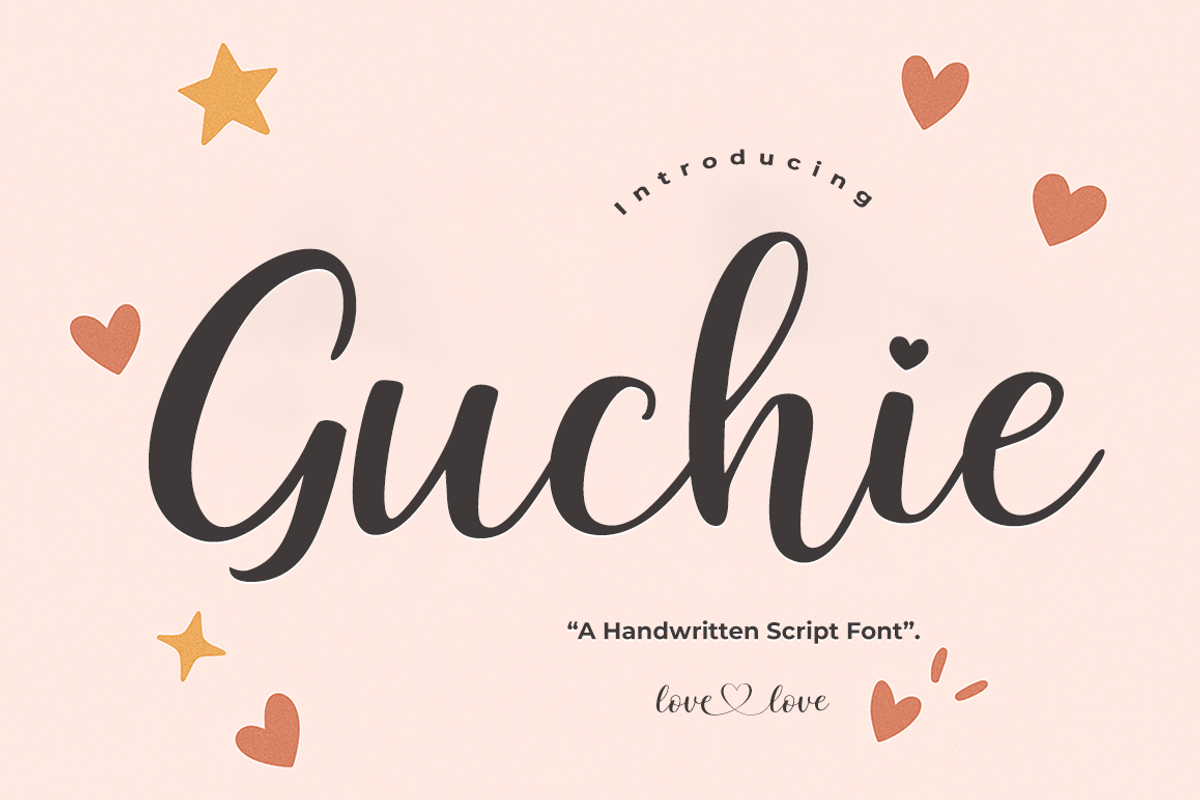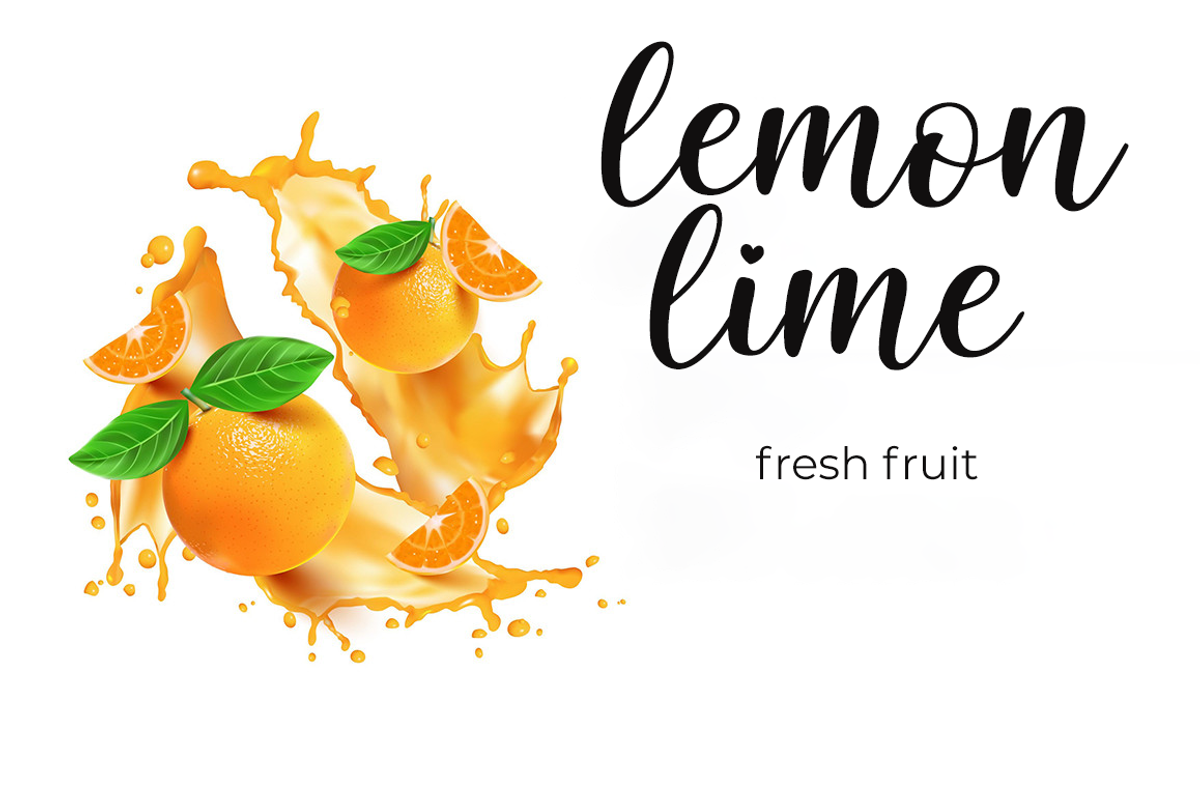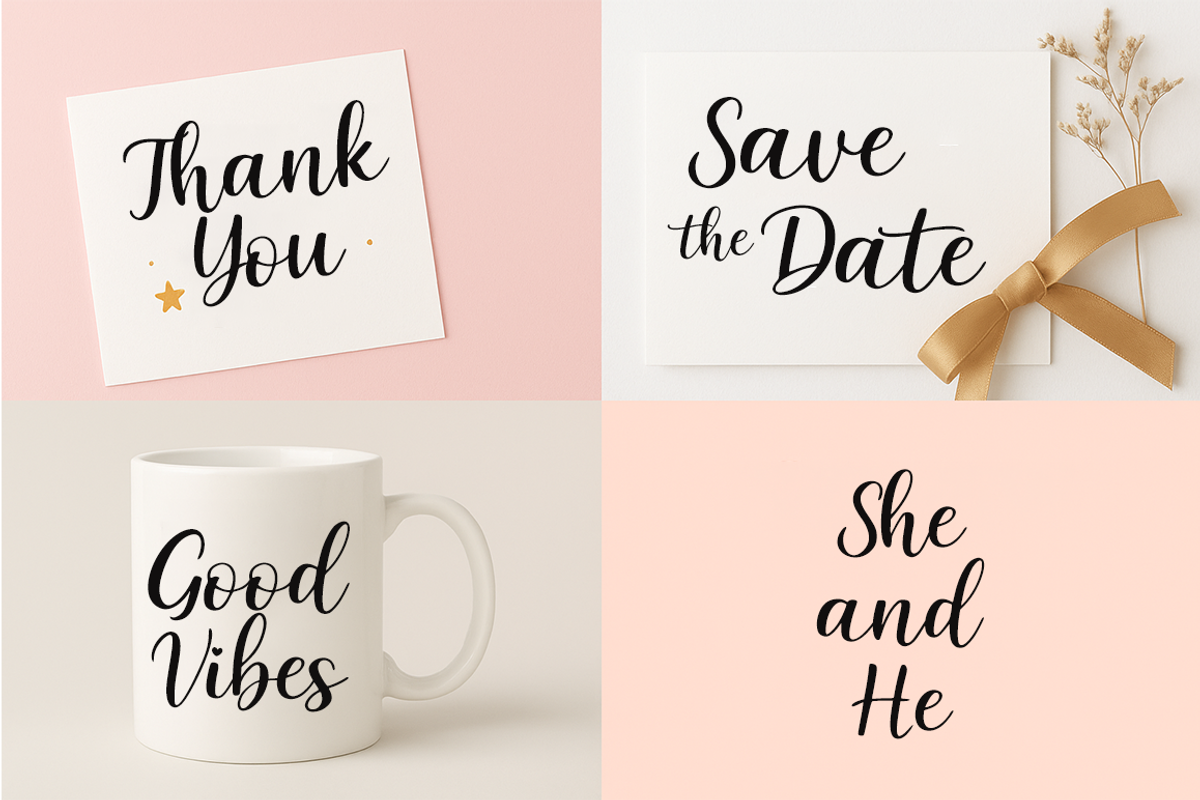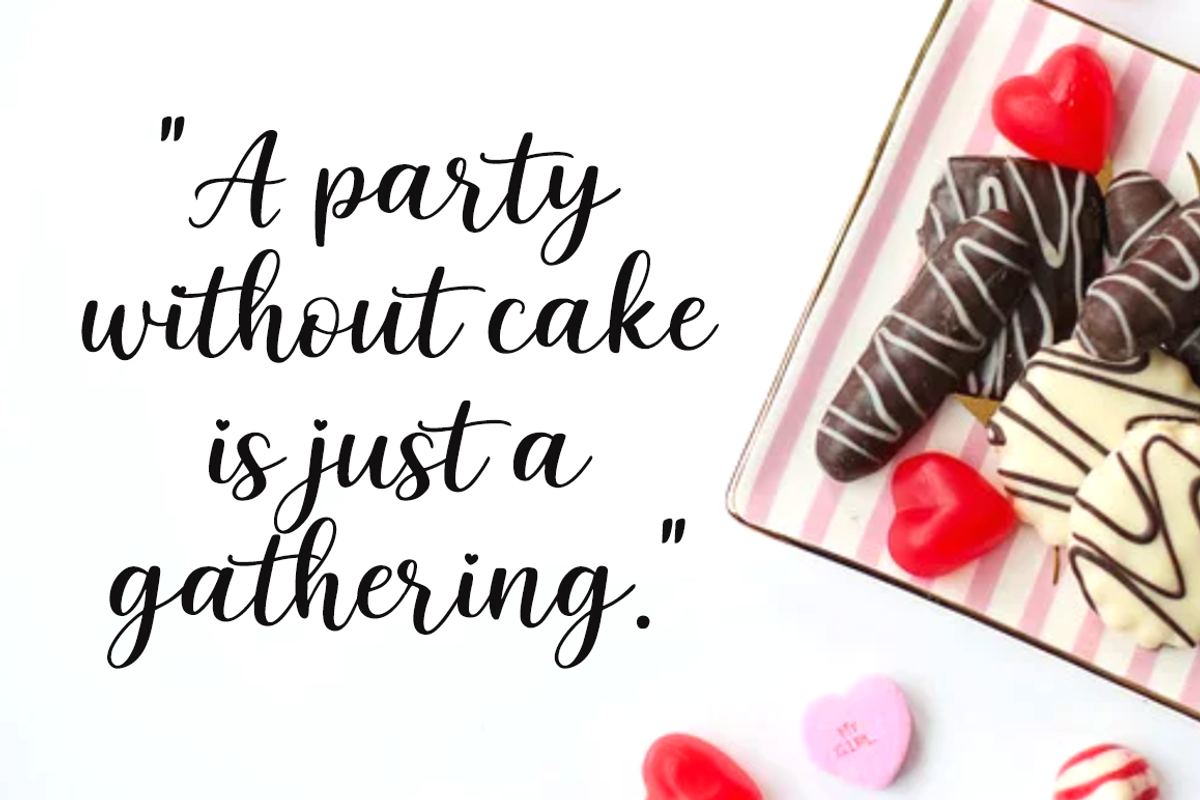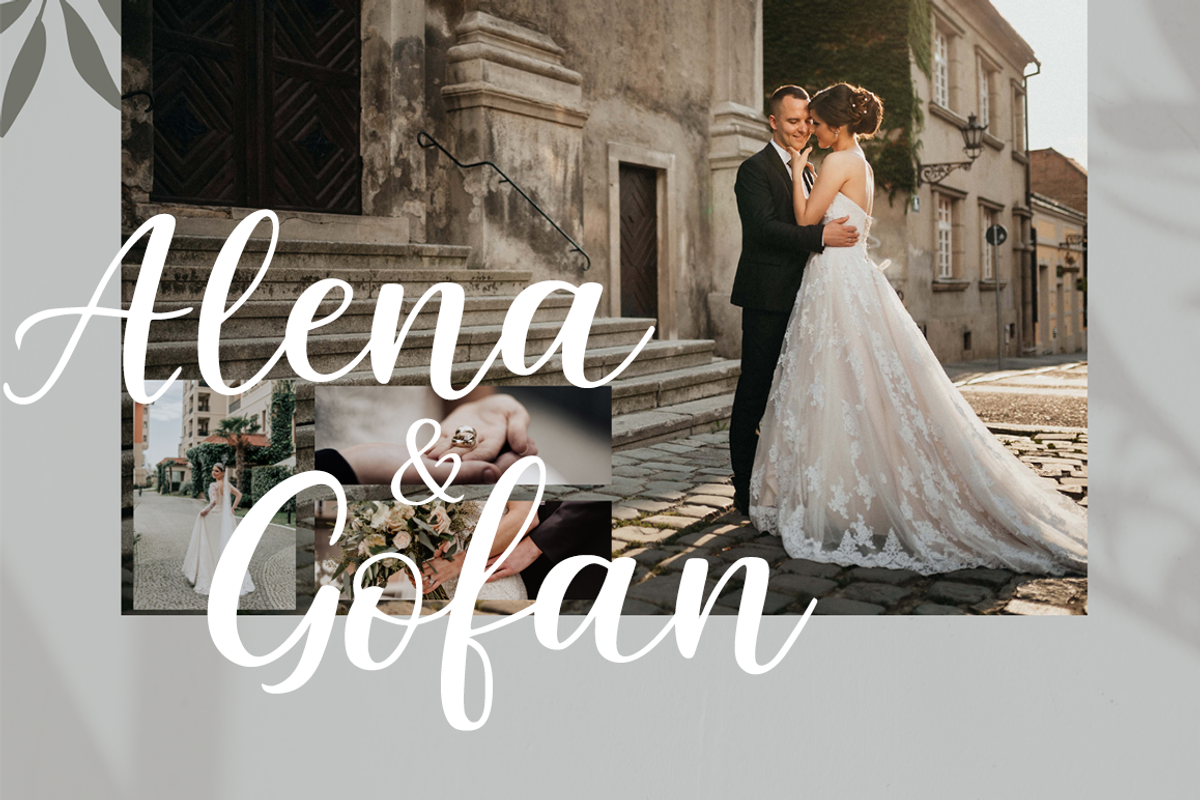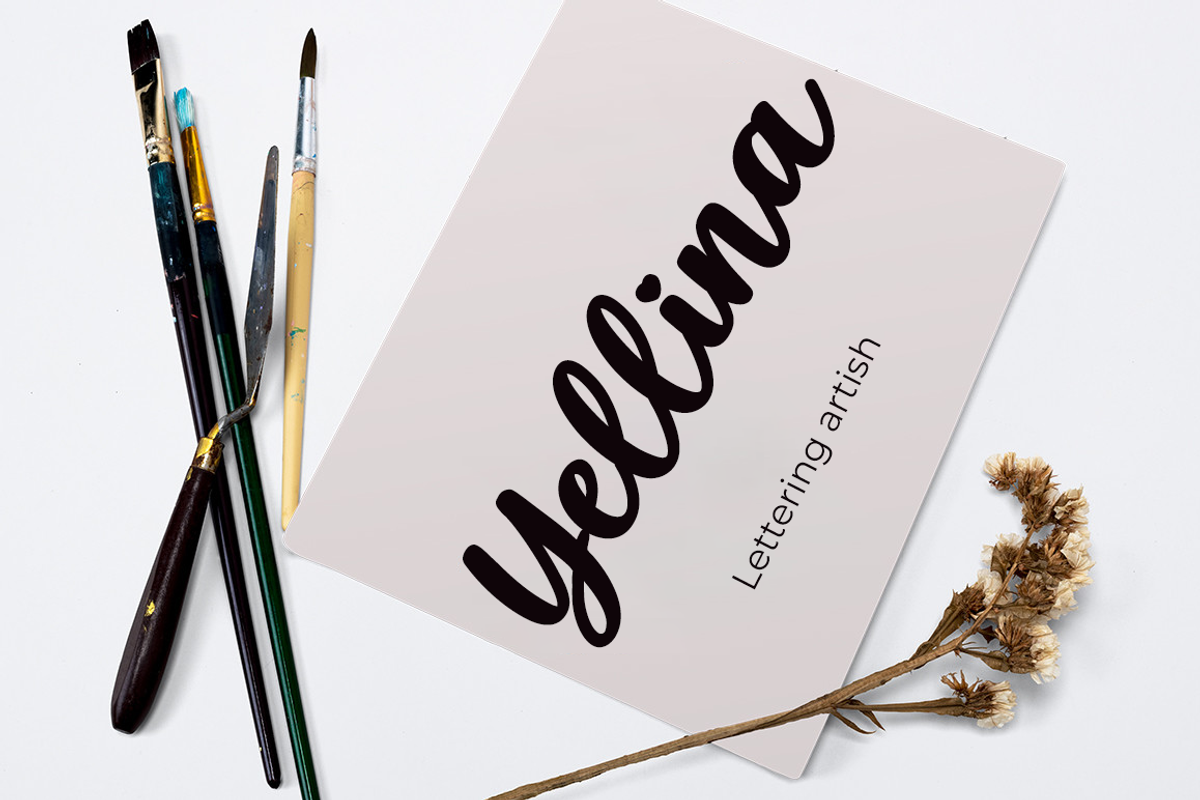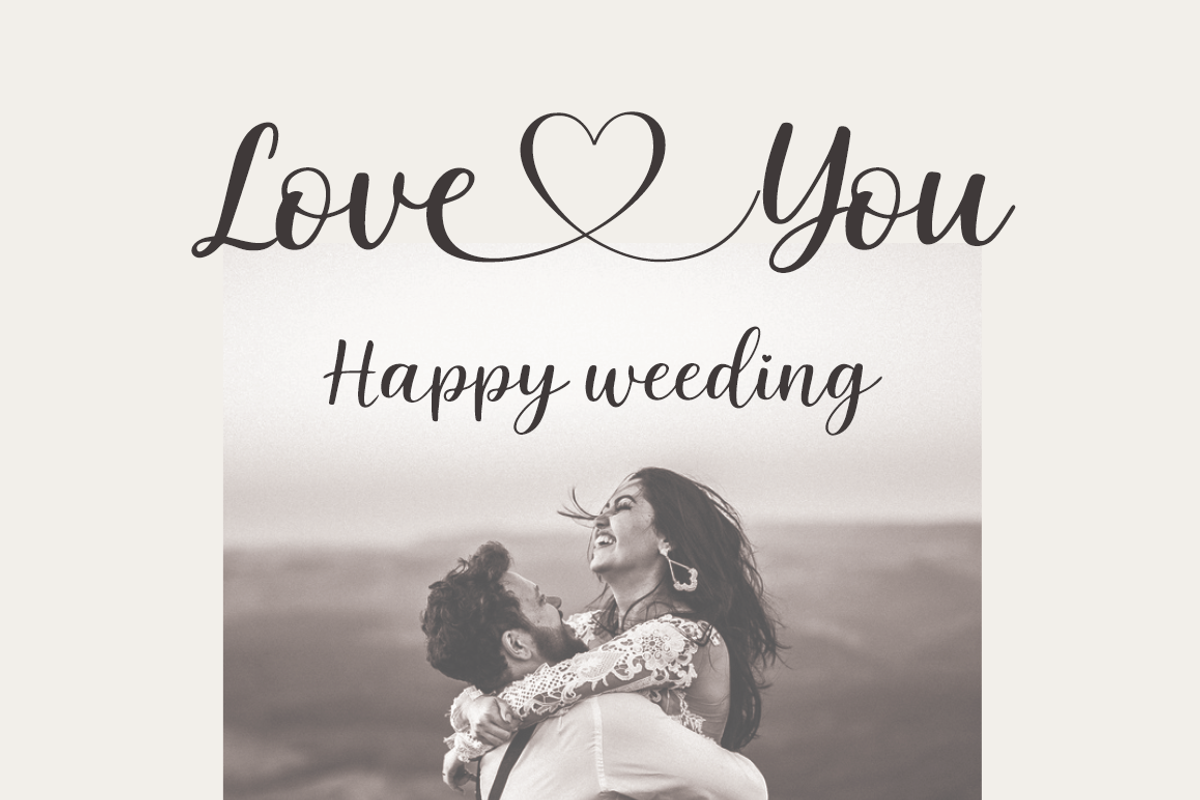
Guchie font with love
Guchie is a modern script font that blends elegance with a playful touch. Featuring smooth strokes and dynamic letterforms, it brings a stylish yet friendly feel to any design project.